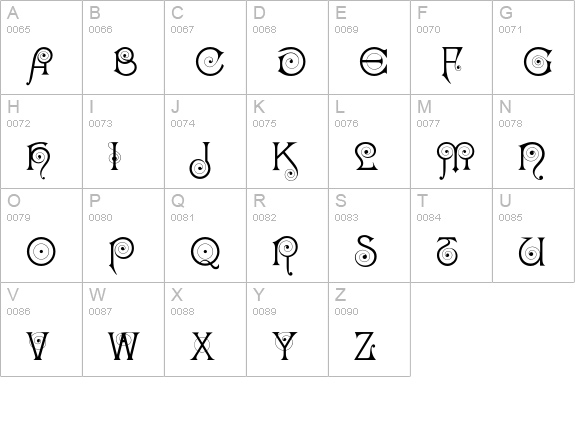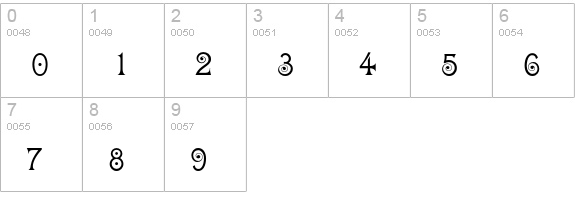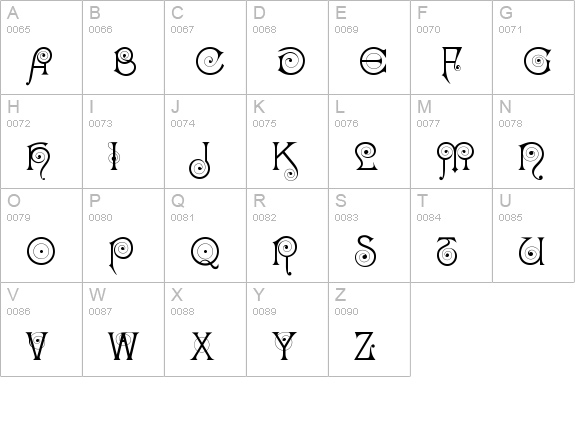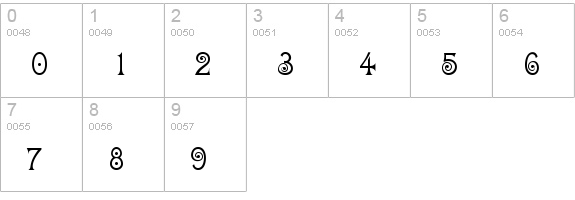
Darling Font Details
Darling Font is a charming and elegant typeface that exudes a sense of warmth and sophistication. With its delicate curves and graceful flourishes, this font is perfect for adding a touch of class to any design project. Whether you're creating wedding invitations, greeting cards, or branding materials, Darling Font will bring a touch of timeless beauty to your work. What makes Darling Font even more appealing is that it is completely free to download at FontsMarket.com. This means you can easily access this stunning typeface and use it in your projects without any cost. So why wait? Download Darling Font today and add a touch of elegance to your designs!